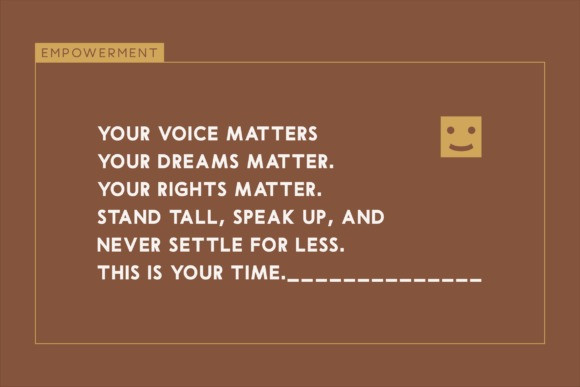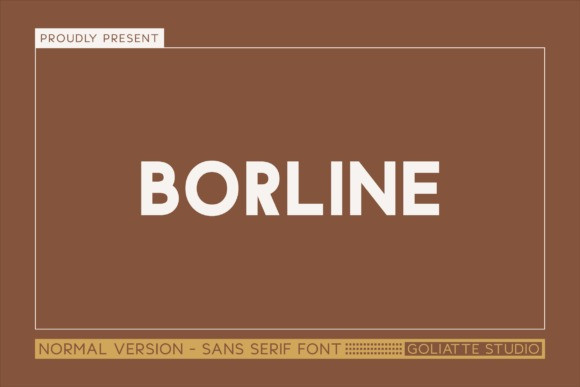
Borline Font
Borline Font – the quintessence of the modern sans serif typeface. This bold, all-uppercase font is tailored to honor the demands of contemporary design with its sleek lines and minimalist elegance. The sheer power and authority that Borline manifests make it the ideal choice for projects that warrant professionalism and significance.
Be it a logo, website, or print material, Borline spells supremacy with its precise, razor-sharp edges. The font’s robust geometric foundation offers a wide-ranging applicability, right from digital mediums to premium branding. The all-uppercase format brings forth crystal-clear legibility, making it an excellent pick for headlines, posters, or any platform where your message ought to be seen, read, and remembered.
Attributes:
– All-uppercase design for paramount impact
– Modern, minimalist beauty focusing on readability
– Bold, immaculate lines for a self-assured and professional demeanor
– Ideal for branding, logos, packaging, and digital design
– Equally effective for large-scale headlines and smaller text sections
Specifically designed for brands, agencies, and designers keen to establish a modern, commanding identity, Borline is particularly suited for technology firms, corporate branding, and luxury design endeavors where fashion and readability triumph. Make a statement with Borline – the typeface that’s engineered to leave its mark.